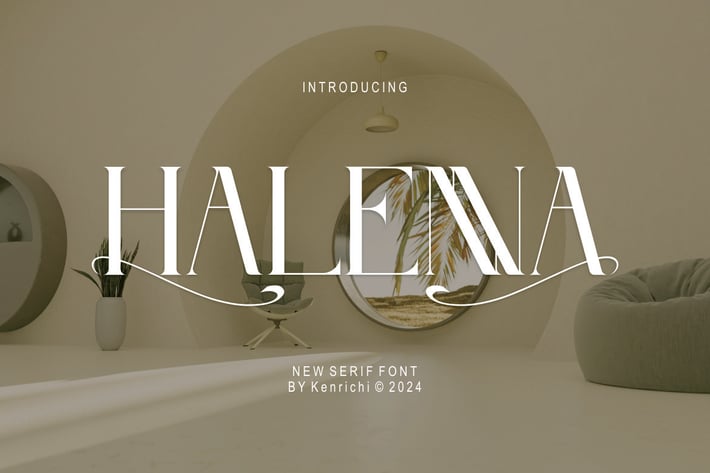
Halenna Font
Halenna Font is a modern and authentic font.
Perfect for both professional and branding needs of a product.
This font is suitable for any branding project like quotes, logo, blog header, poster, banding, letter, invitation, stationery,
etc... Designed as a versatile and flexible that can be used on a range of projects and mediums.
outstanding in a wide range of contexts.
Halenna Font is a modern and authentic font.
Perfect for both professional and branding needs of a product.
This font is suitable for any branding project like quotes, logo, blog header, poster, banding, letter, invitation, stationery,
etc... Designed as a versatile and flexible that can be used on a range of projects and mediums.
outstanding in a wide range of contexts.